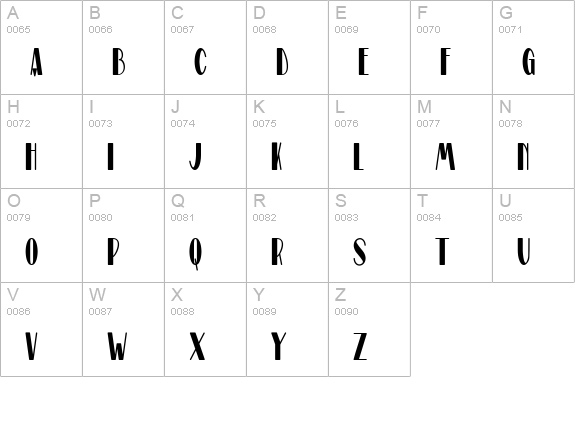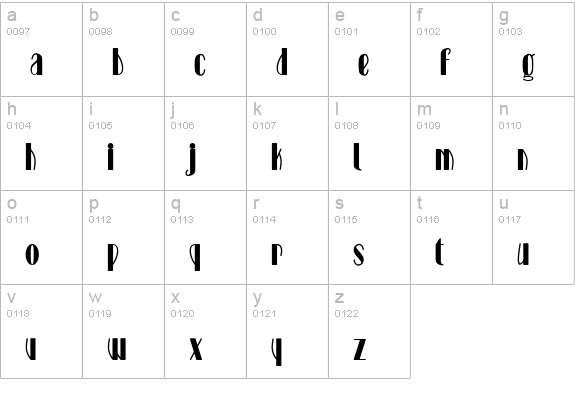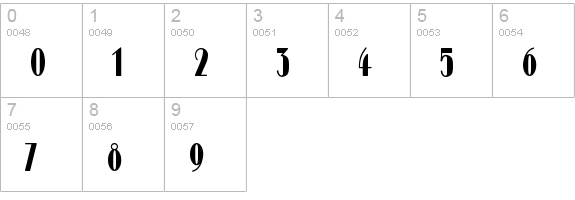
Stage font is a visually captivating and artistic typeface that effortlessly adds a touch of elegance and sophistication to any design project. Its beautifully crafted letterforms showcase a perfect balance between boldness and delicacy, making it a versatile choice for both headings and body text. With its unique and eye-catching design, Stage font is sure to capture the attention of your audience and leave a lasting impression. Whether you're designing a logo, creating a poster, or crafting a website, this font will bring your creative vision to life and elevate your work to new heights. One of the best things about Stage font is that it is free. Yes, you heard it right! You can freely download this stunning font at FontsMarket.com. This means that you can access its full potential without any cost, making it an excellent choice for both personal and commercial projects. Designed with utmost care and attention to detail, Stage font offers a wide range of characters, including uppercase letters, lowercase letters, numbers, and punctuation marks. The clean and legible letterforms ensure readability at any size, making it suitable for various design applications. Whether you're a professional designer or a hobbyist, Stage font is a must-have in your font library. Its versatility, elegance, and free availability make it a valuable asset that will enhance any design project. So, don't miss out on this fantastic opportunity to elevate your designs with Stage font, freely available to download at FontsMarket.com.